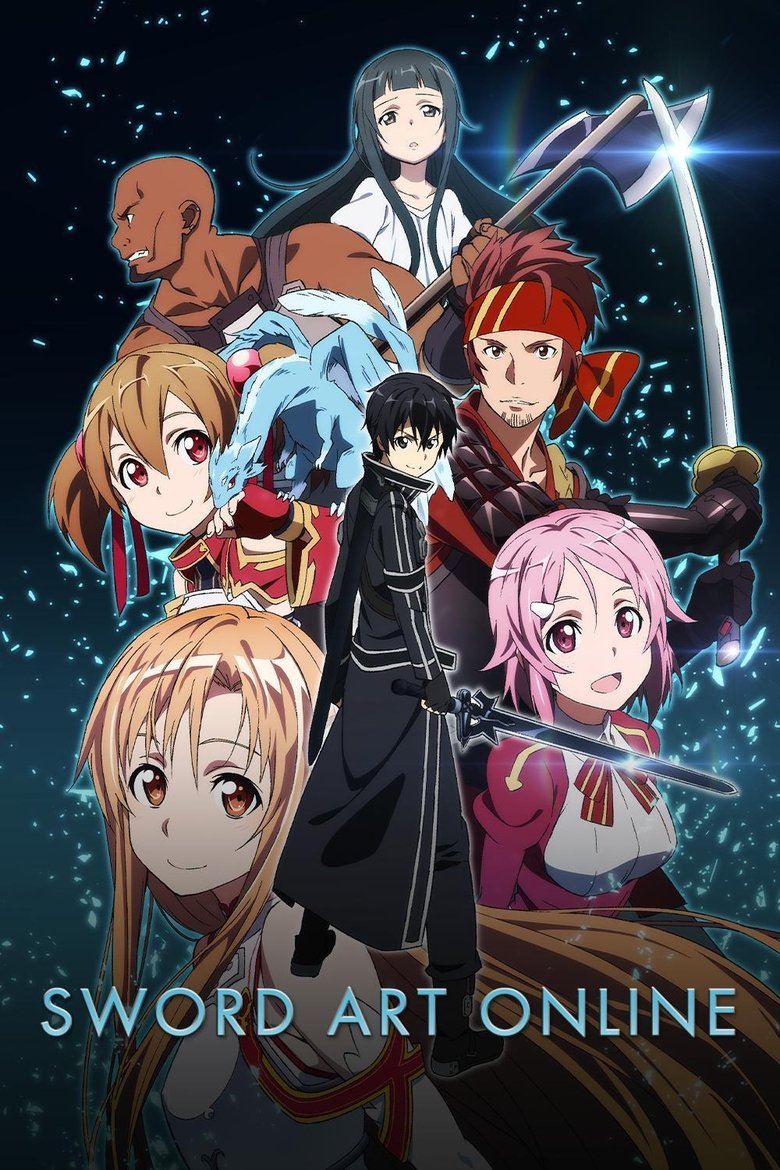
About the Sword Art Online font
Sword Art Online's title is sleek and digital. Orbitron recreates that virtual-reality, futuristic sheen.
What font is used in the Sword Art Online logo?+
The original Sword Art Online logo uses custom lettering. This generator recreates the look with Orbitron — a free, open-license font you can style and download.